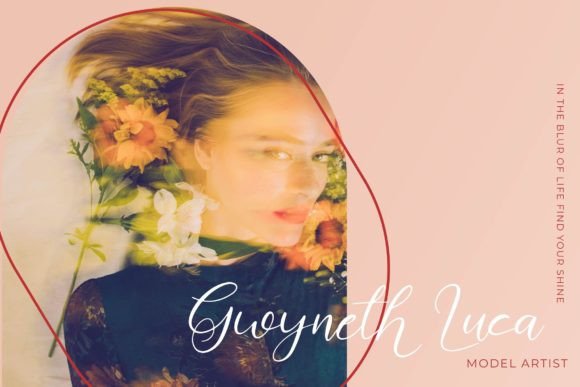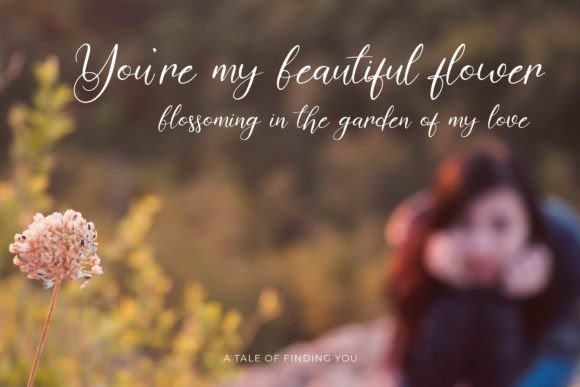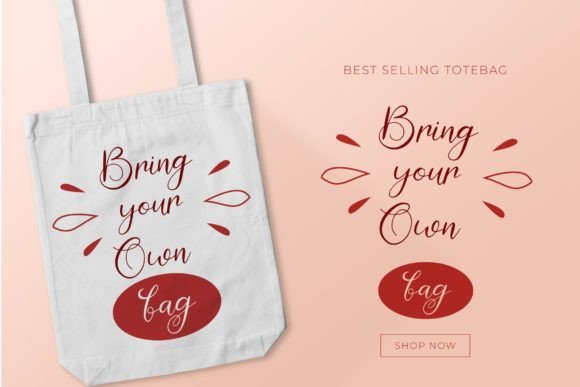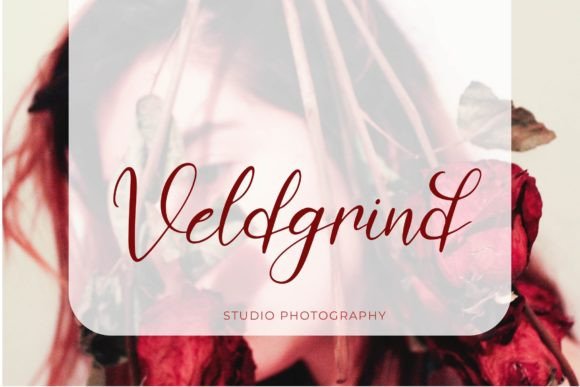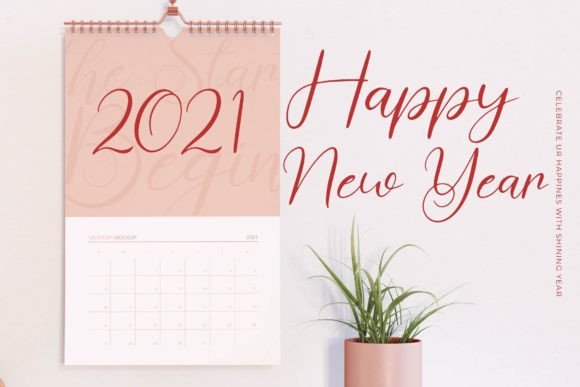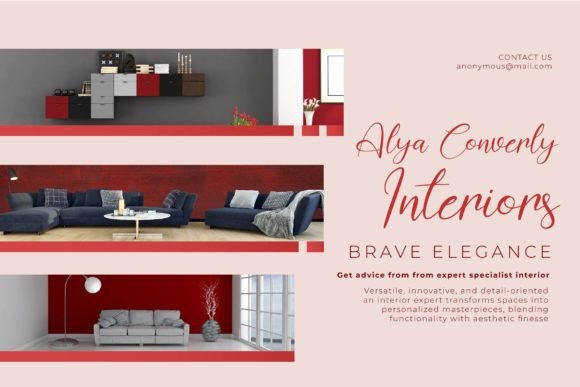
Introduction to Revalyna Font
Remember that moment when you stumbled upon the perfect font to elevate your design project? For many creatives, that ‘aha’ moment is what sets their work apart. It’s the subtle touch that transforms a good design into a great one. For designers, finding the perfect font can be a game-changer.
One such gem is the Revalyna Font, a stunning script font that has captured the hearts of designers worldwide. Its smooth, flowing letters evoke the feeling of handwriting, making it perfect for invitations, greeting cards, logos, and other creative projects where you want a personal, fancy touch.
Key Features of Revalyna Font
- High-quality design resource ideal for creative projects requiring a unique touch
- Unique characteristics and intricate details make it an excellent choice for designers seeking a distinctive look
- Perfect for use in various design projects, including digital art, graphic design, and typography-based creative endeavors
Honest Review: Revalyna Font
I recently stumbled upon the Revalyna Font, and I’m excited to share my honest review with fellow designers. This beautiful font is a great addition to any design resource collection.
- ✨ Unique and creative design that’s perfect for high-quality projects
- ⚠️ Limited character set, which may not be suitable for extensive text-based projects
Overall, I’m impressed with the Revalyna Font’s unique design and high-quality features. It’s an excellent choice for creative projects, and its free download makes it a great resource for designers looking to add some flair to their designs.
The Revalyna Font is a high-quality design resource ideal for creative projects. With its transparent background and free download option, it’s a great addition to any design collection.
The Revalyna Font is suitable for a variety of creative projects, including branding, logos, and infographics. Its high-quality design makes it an excellent choice for presentations and marketing materials.